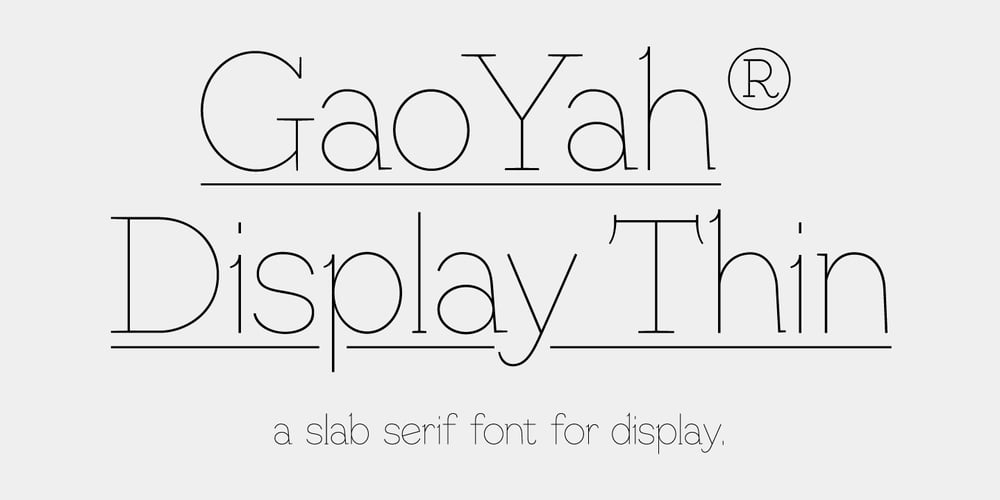
GaoYah Display
GaoYah Display font
GaoYah Display Font Family was designed by xingchen and published by Stones Design Lab. GaoYah Display contains 1 styles and family package options. GaoYah Display Thin is a type in very thin line, GaoYah means Elegance in Mandarin, some characters build in unique shapes can make a good memory. This font is suitable for huge titles display, in which way the line and detail shows elegance. It will make good performance in dark background as well. Including Basic English and Western Europe languages.